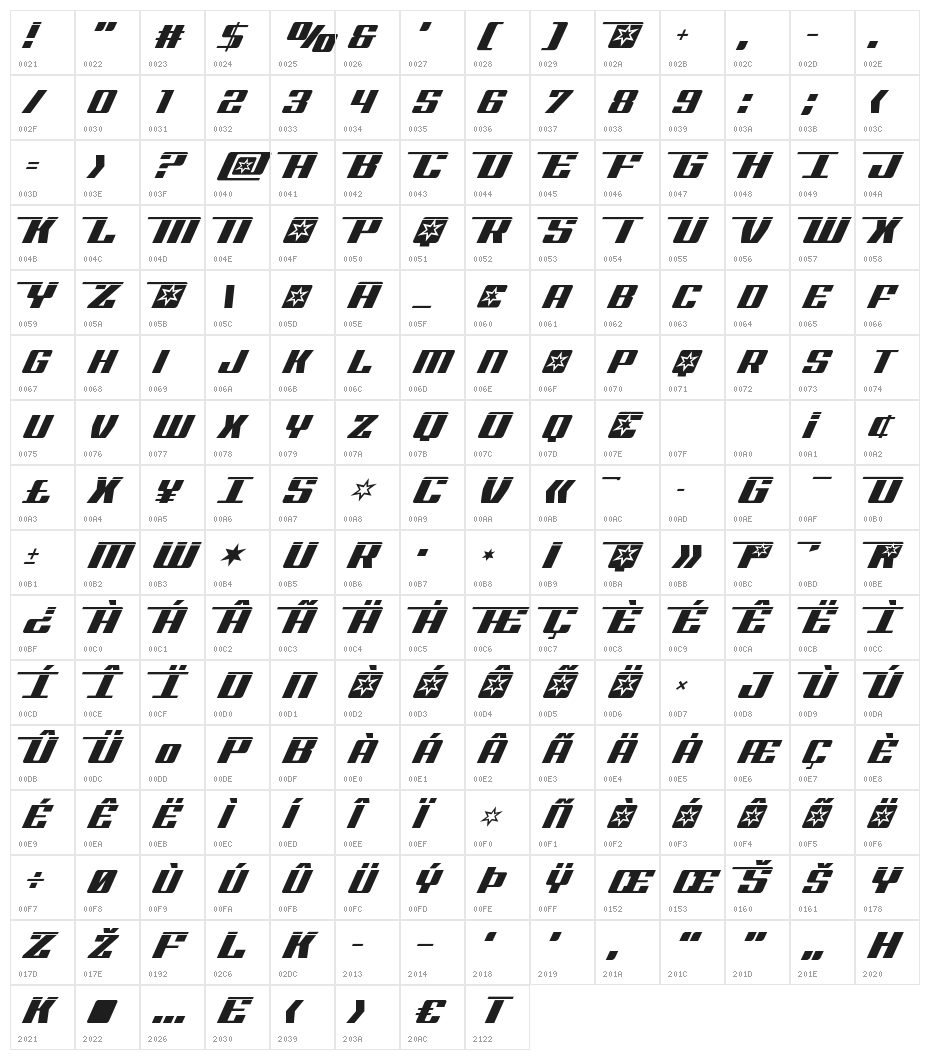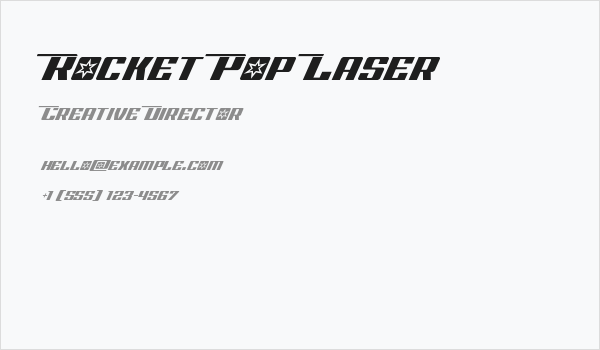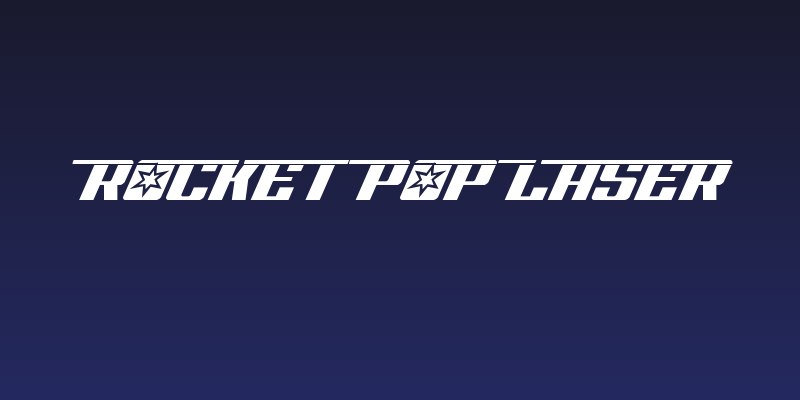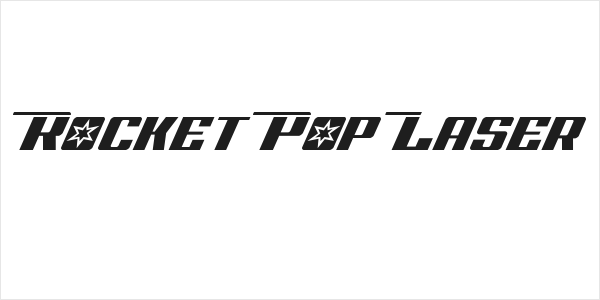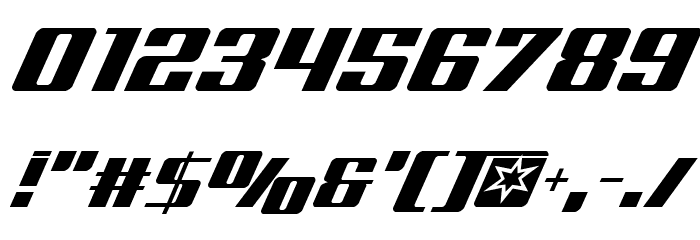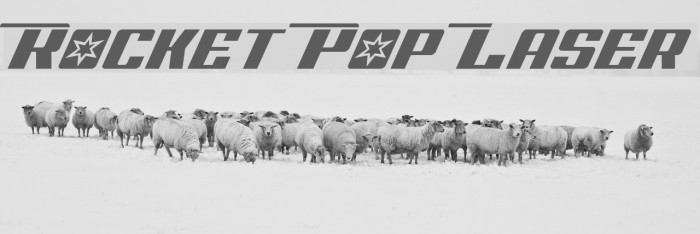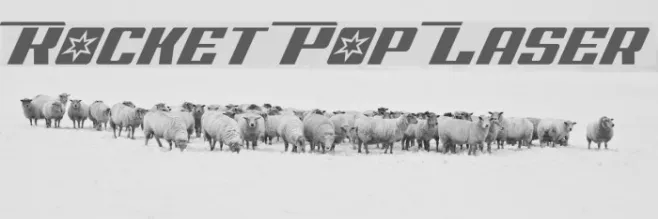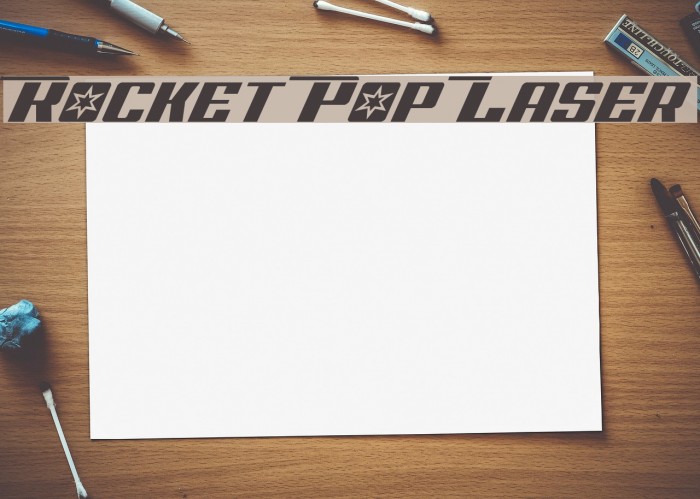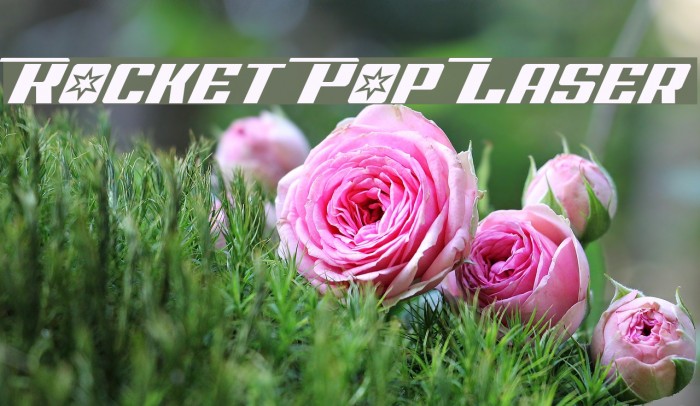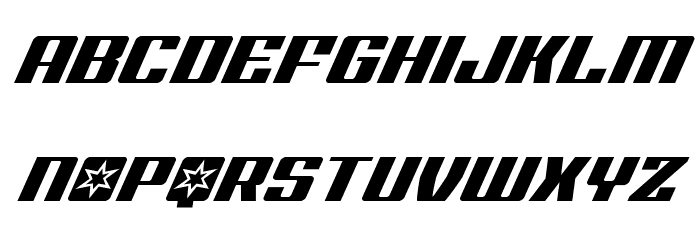
Rocket Pop Laser Font
Rocket Pop Laser Description
This font features a bold, futuristic design with sharp angles and a dynamic slant, giving it a sense of motion and energy. The uppercase letters are particularly striking, with some characters incorporating star-like embellishments that add a unique, decorative touch. The numbers and special characters maintain the same bold and angular style, ensuring consistency throughout. This font is ideal for projects that require a modern, edgy look with a touch of flair.
| Proposed Projects | Ideal for sci-fi themed posters, video game titles, and branding for tech companies. |